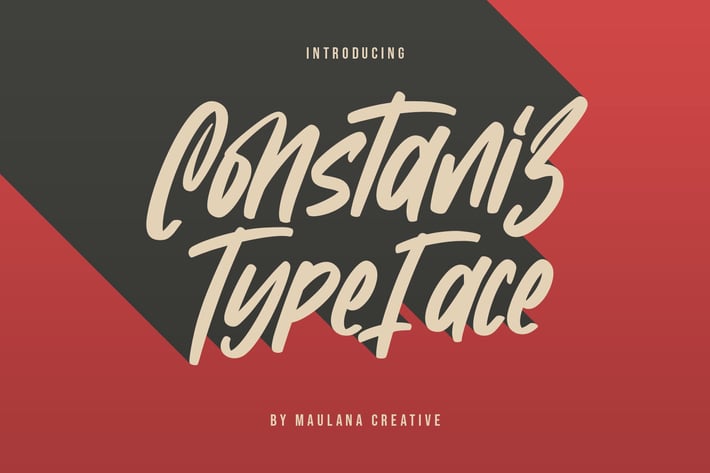
Constaniz Typeface
Give your designs an authentic handcrafted feel. "Constaniz Typeface" is perfectly suited to signature, stationery, logo, typography quotes, magazine or book cover, website header, clothing, branding, packaging design and more.